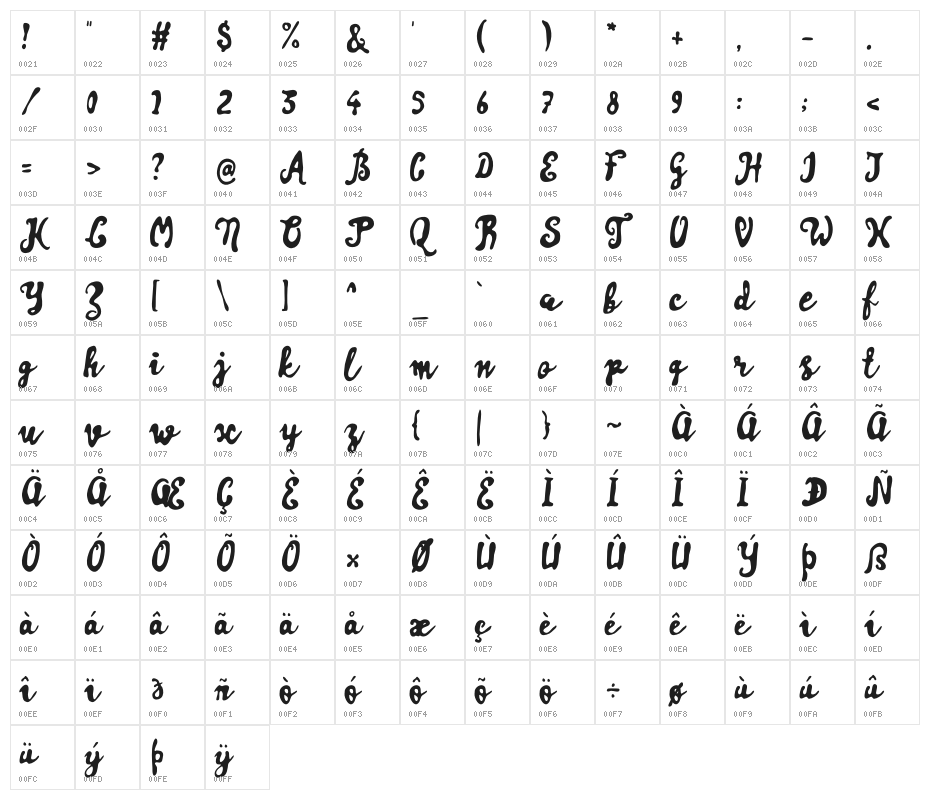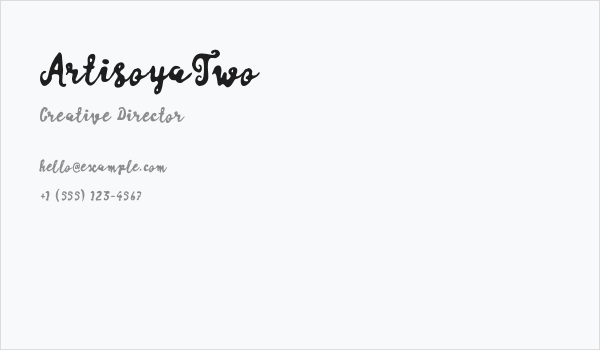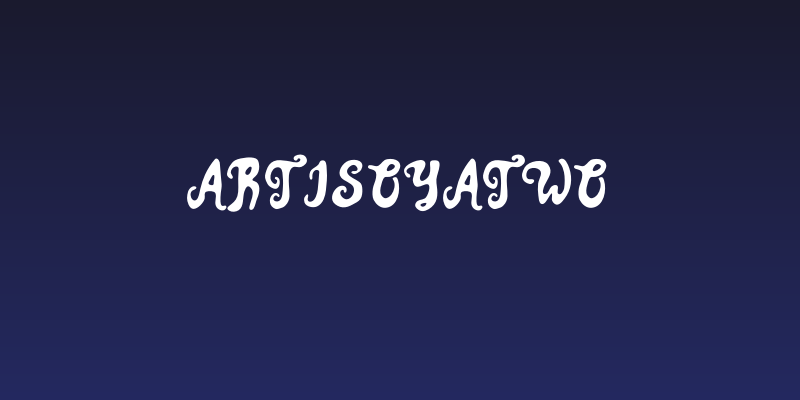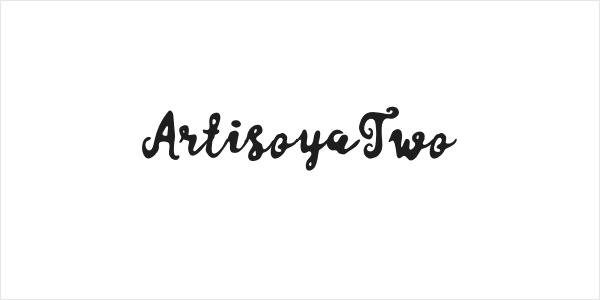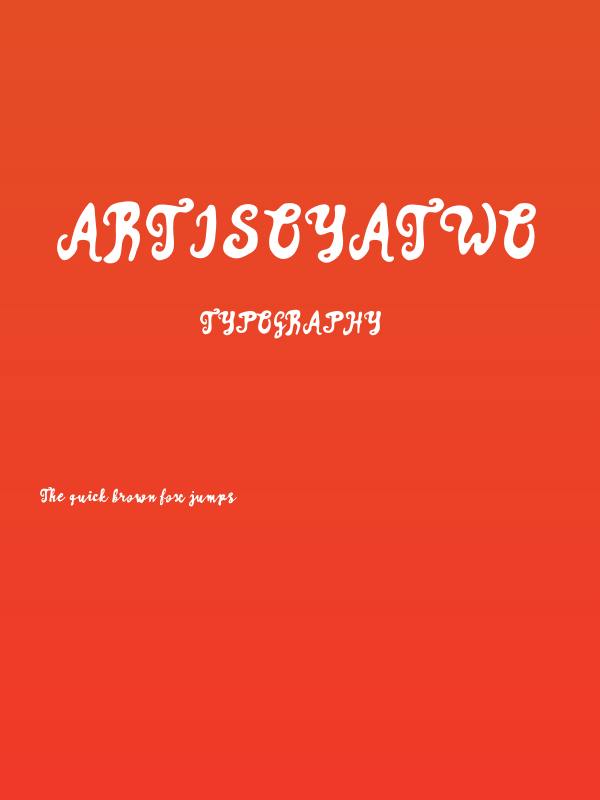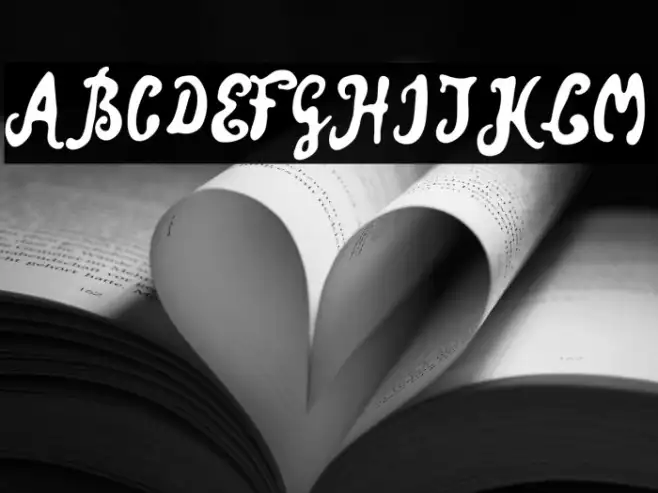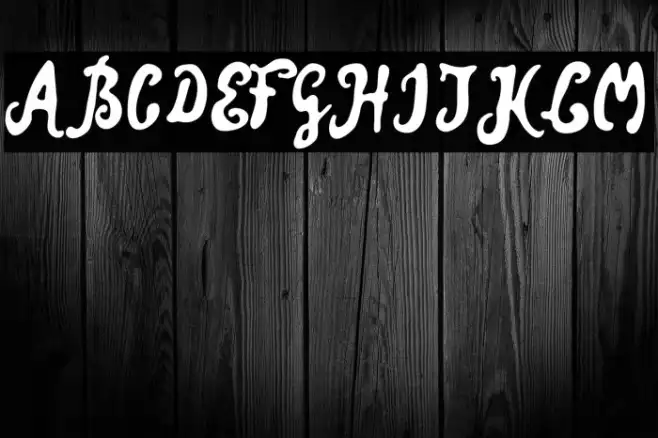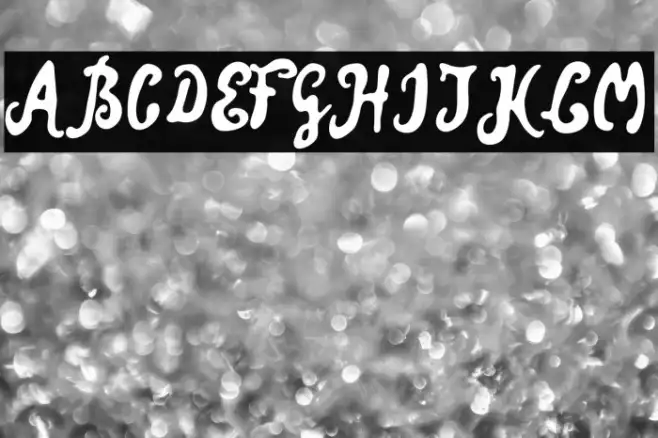
ArtisoyaTwo Font
ArtisoyaTwo Description
This font features a bold and playful script style with a handwritten appearance. The characters are rounded and connected, giving a fluid and dynamic look. The uppercase letters are slightly larger, maintaining a consistent flow with the lowercase letters. Numbers and special characters follow the same playful and bold design, making them stand out. The overall style is casual and artistic, suitable for projects that require a personal touch. The font's thick strokes and rounded edges contribute to its friendly and approachable feel.
| Proposed Projects | Ideal for greeting cards, invitations, playful branding, and artistic posters. |